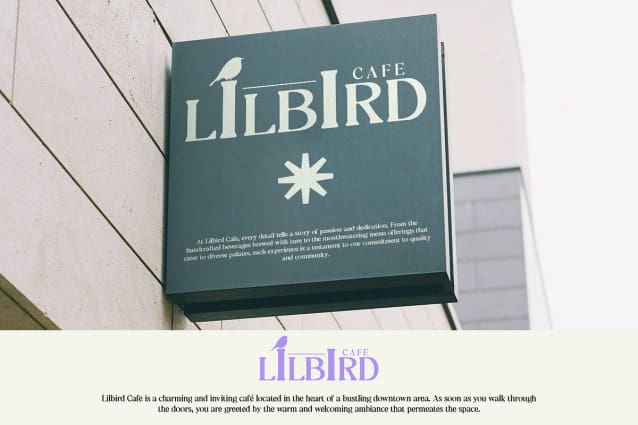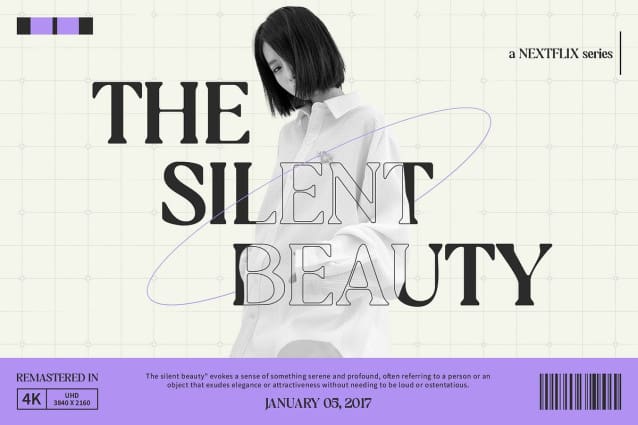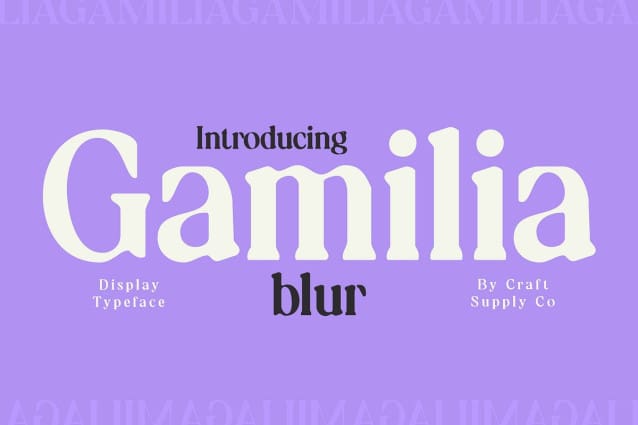
Gamilia Blur Font
Gamilia Blur Font is a modern serif font that combines elegant, refined letterforms with a subtle blur effect. This design introduces a sense of sophistication and contemporary style, adding a soft, dreamy quality to the text.
Subtle Blur for Sophisticated Style The gentle blur effect in Gamilia Blur creates a distinctive and stylish look, infusing the font with a graceful, ethereal touch. This contemporary enhancement provides a unique, sophisticated appearance, perfect for projects that require a blend of classic elegance and modern flair.
Ideal for High-End Branding and Editorial Design Perfect for high-end branding, editorial design, and luxury invitations, Gamilia Blur’s refined structure and modern blur offer a polished and upscale aesthetic. Its elegant design ensures a distinctive impact, elevating any project with its unique, graceful quality.
Distinctive and Graceful for Luxurious Projects Whether used in prestigious branding, elegant editorial layouts, or exclusive invitations, Gamilia Blur adds a touch of modern sophistication and timeless grace. Its blend of classic serif elements and contemporary blur makes it an ideal choice for high-end and luxurious design applications.